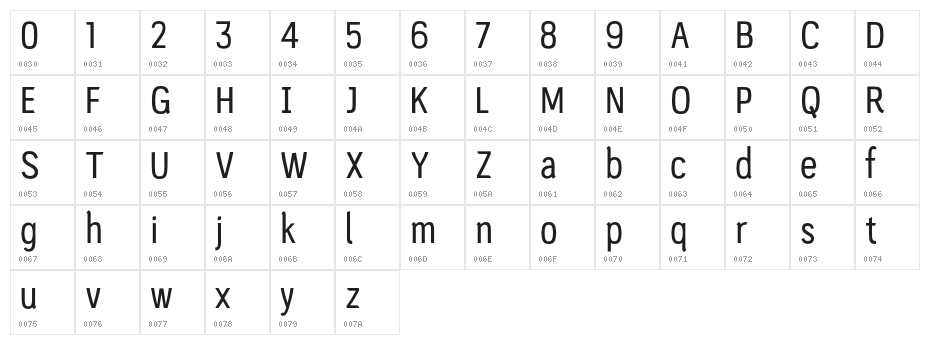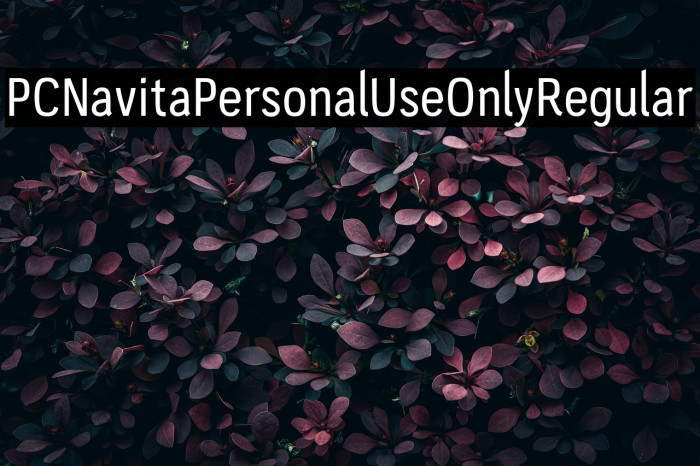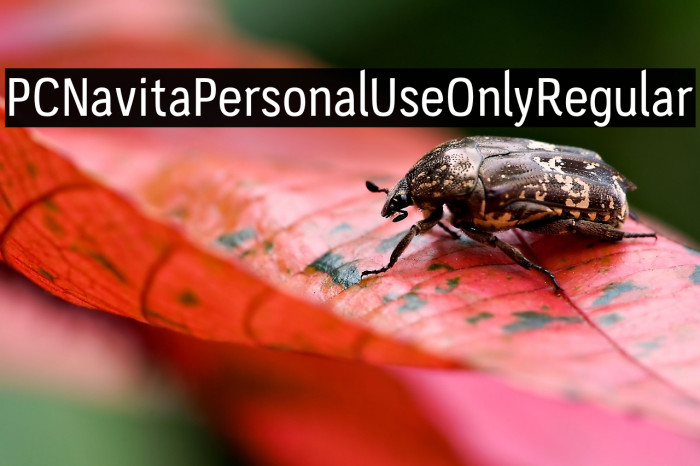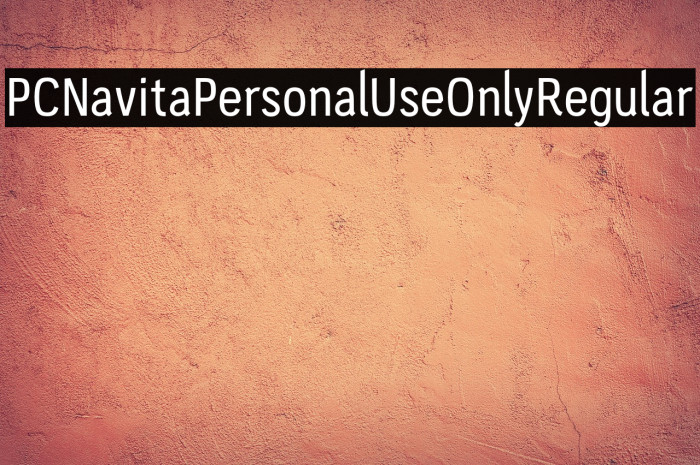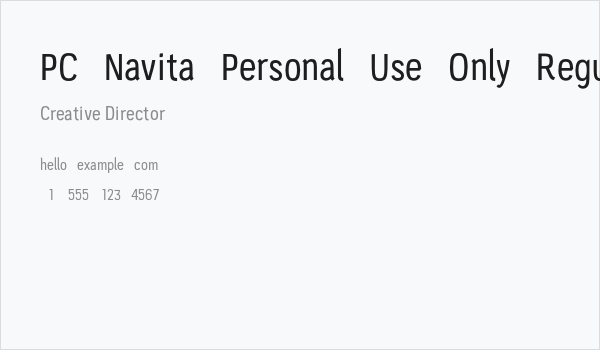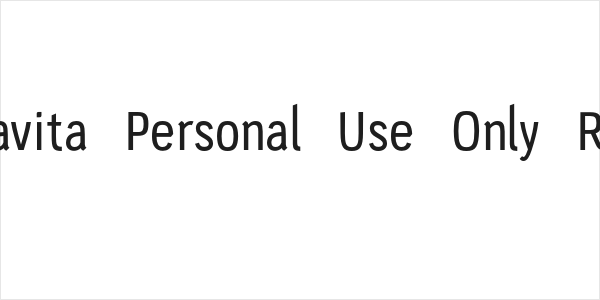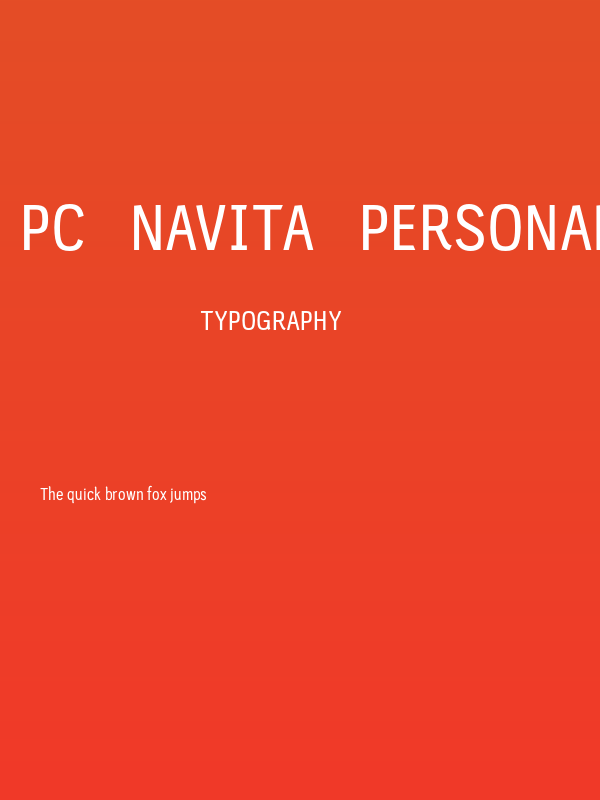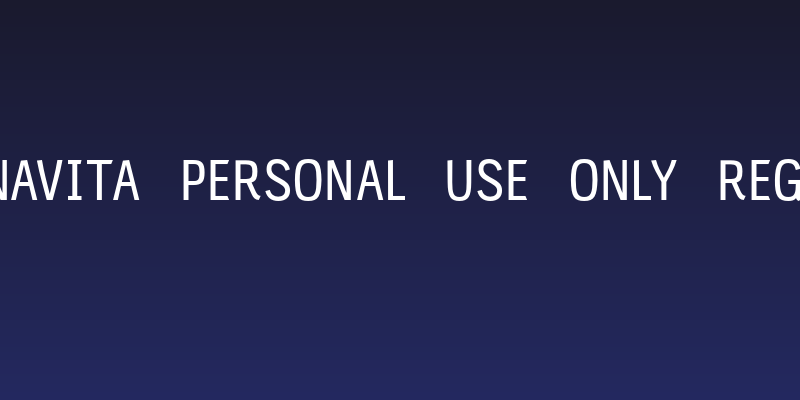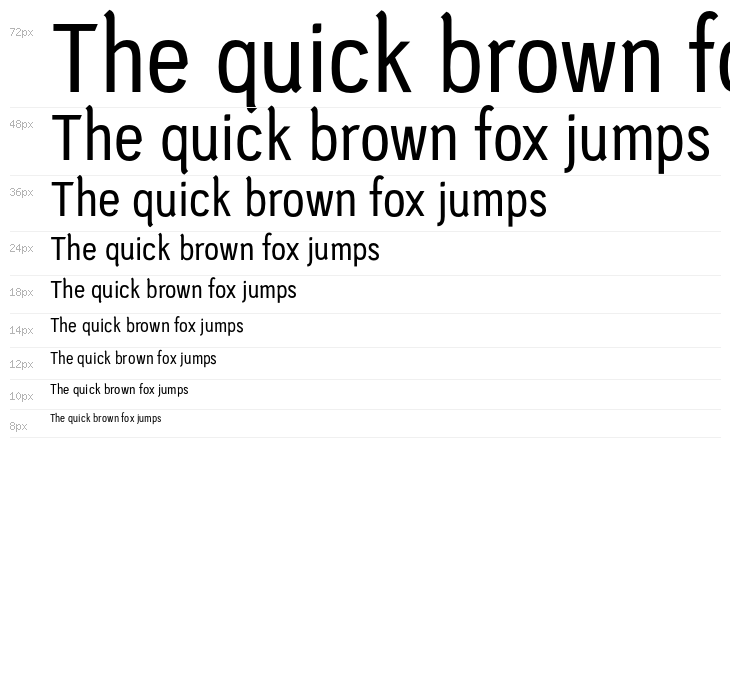
PC-Navita-Personal-Use-Only-Regular Font
PC-Navita-Personal-Use-Only-Regular Description
This font features a clean and modern sans-serif style, characterized by its straightforward and geometric letterforms. The uppercase and lowercase letters maintain a consistent height and width, providing a harmonious and balanced appearance. The numerals are clear and easily distinguishable, making them suitable for a variety of applications. The font's design is minimalistic, with a focus on readability and functionality, making it versatile for both digital and print media. The overall aesthetic is contemporary, with a subtle elegance that can enhance any design project.